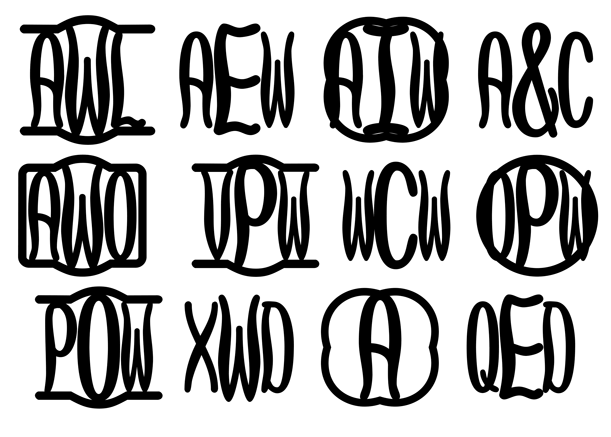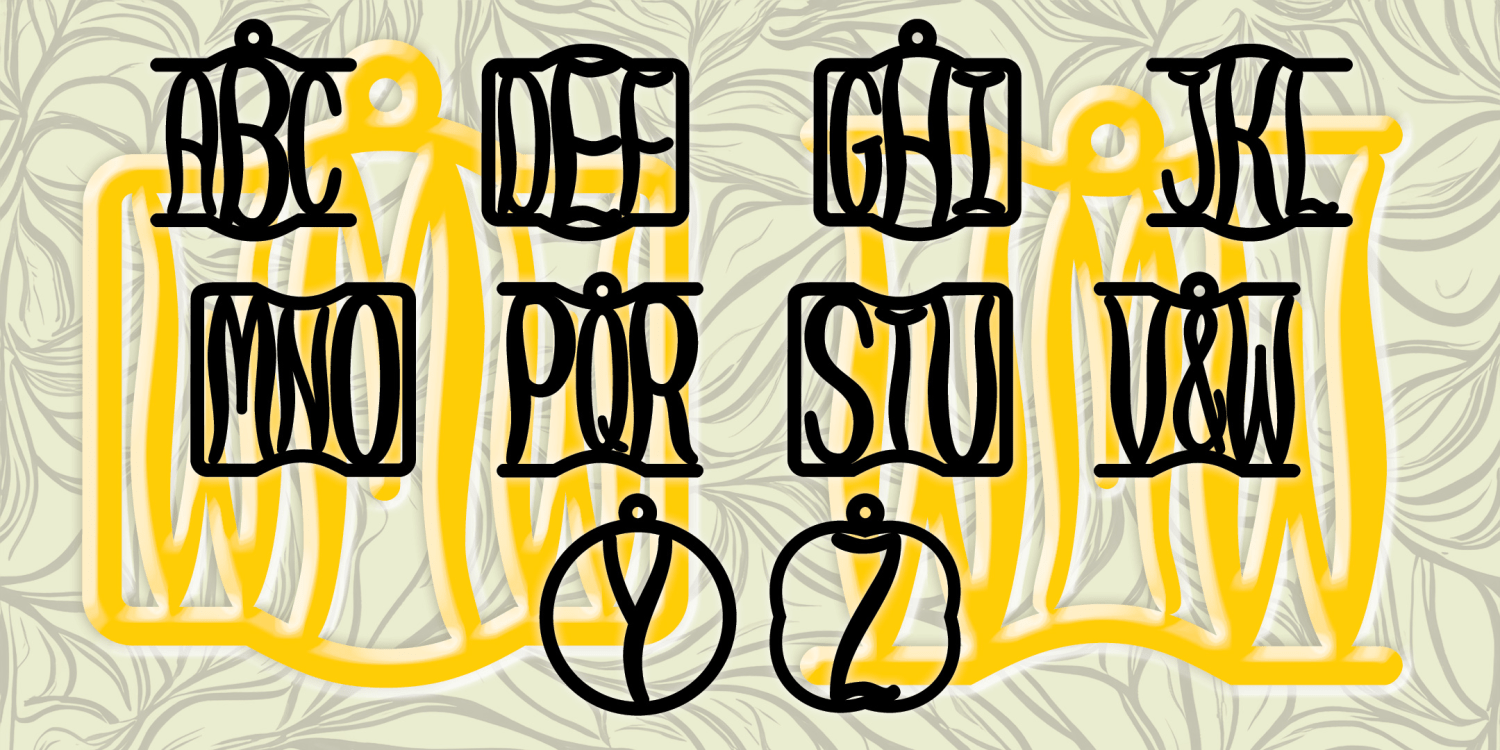
Willow Monogram
About Willow Monogram
WILLOW MONOGRAMS is a unique font allow you to create 1- and 3-letter monograms in a graceful curvy style with a choice of decorative accents. The letters are designed to touch each other and/or the frames for applications where this is desirable.